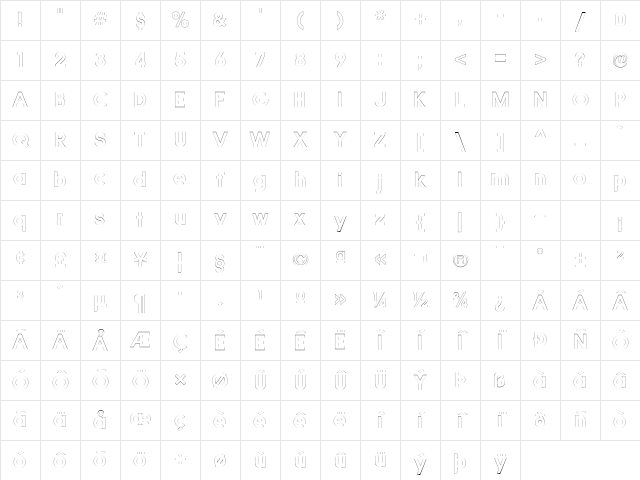
Complete QuicksansAccurateICG Regular glyph index. Displaying only characters natively supported by QuicksansAccurateICG Regular font.
QuicksansAccurateICG is a composed and adaptable typeface that performs quietly and consistently across a wide range of design contexts.